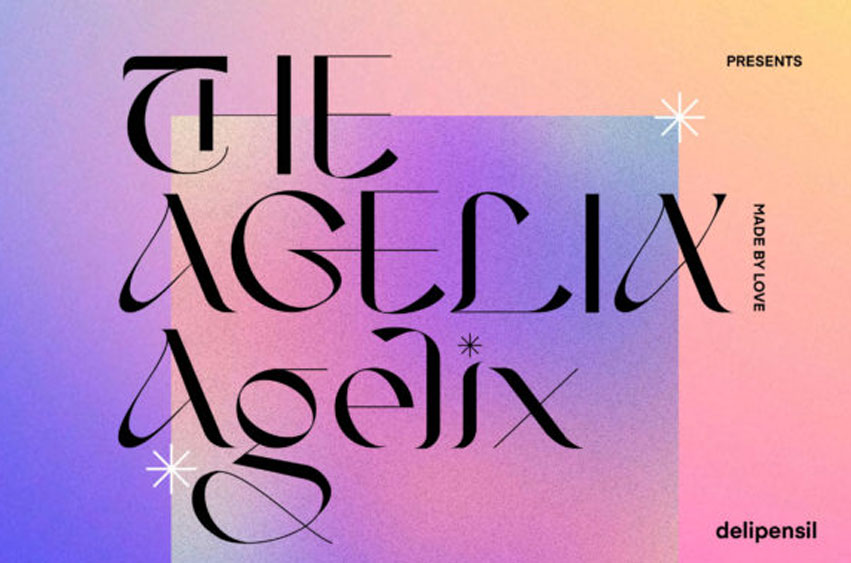
Agelix Font
Agelix Font is a modern, clean, and classic display font that will add beauty and elegance to your logo, headline, book cover, magazine, or design project.
Crafted with high attention to detail, it gives you the best design experience.